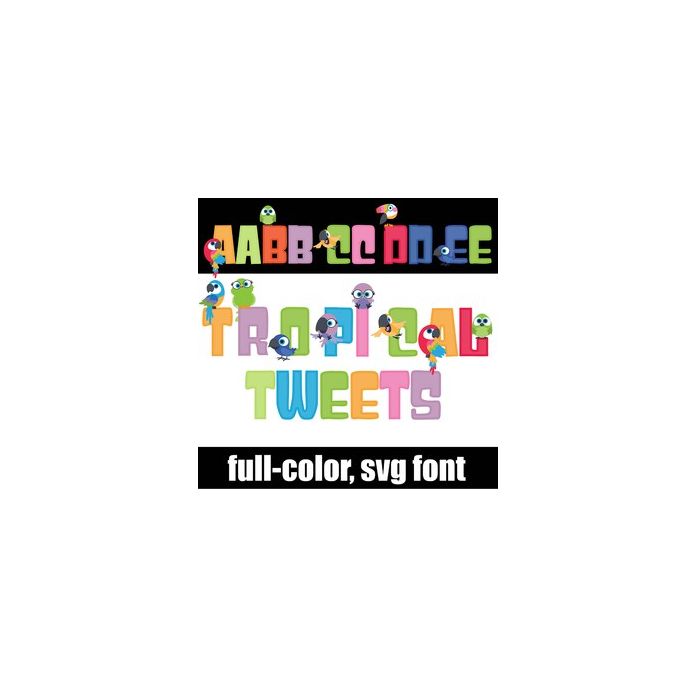
This full-color font features tropical birds on the uppercase and a lowercase without. There is a secondary alt case for both upper and lower that you can access through Silhouette's glyph map.